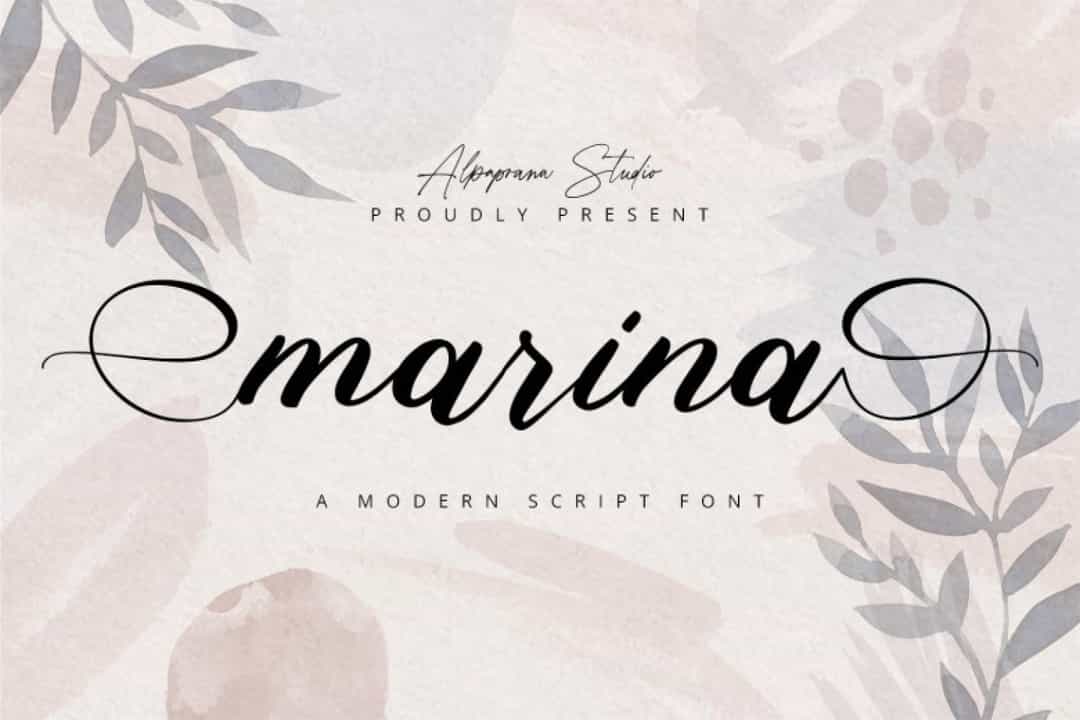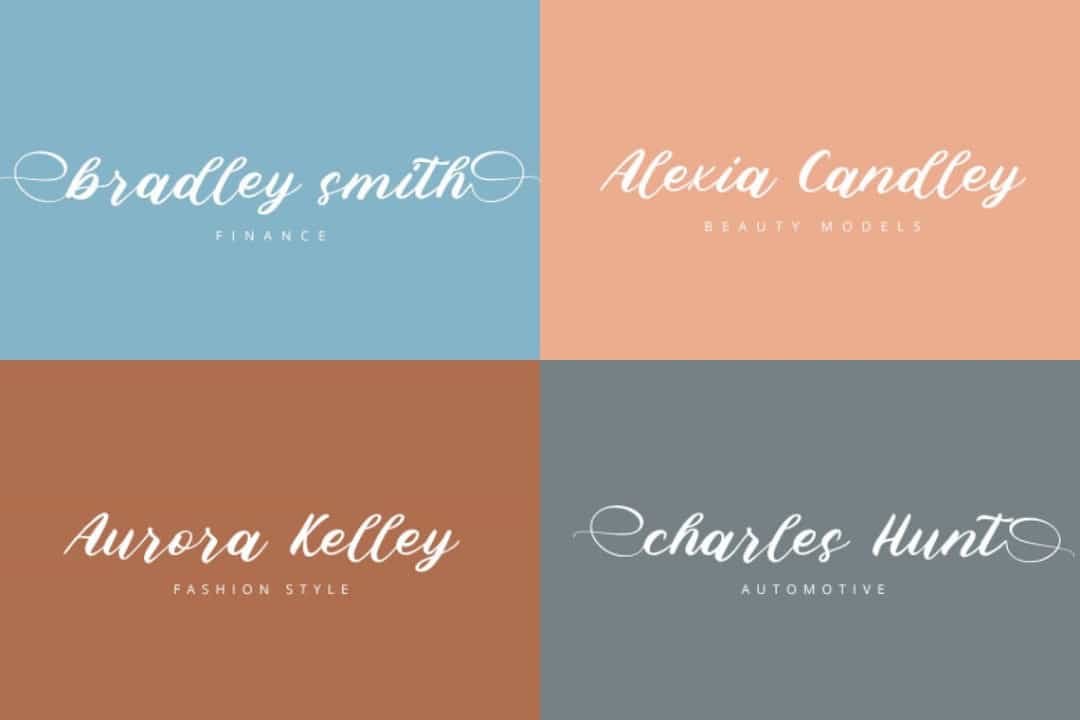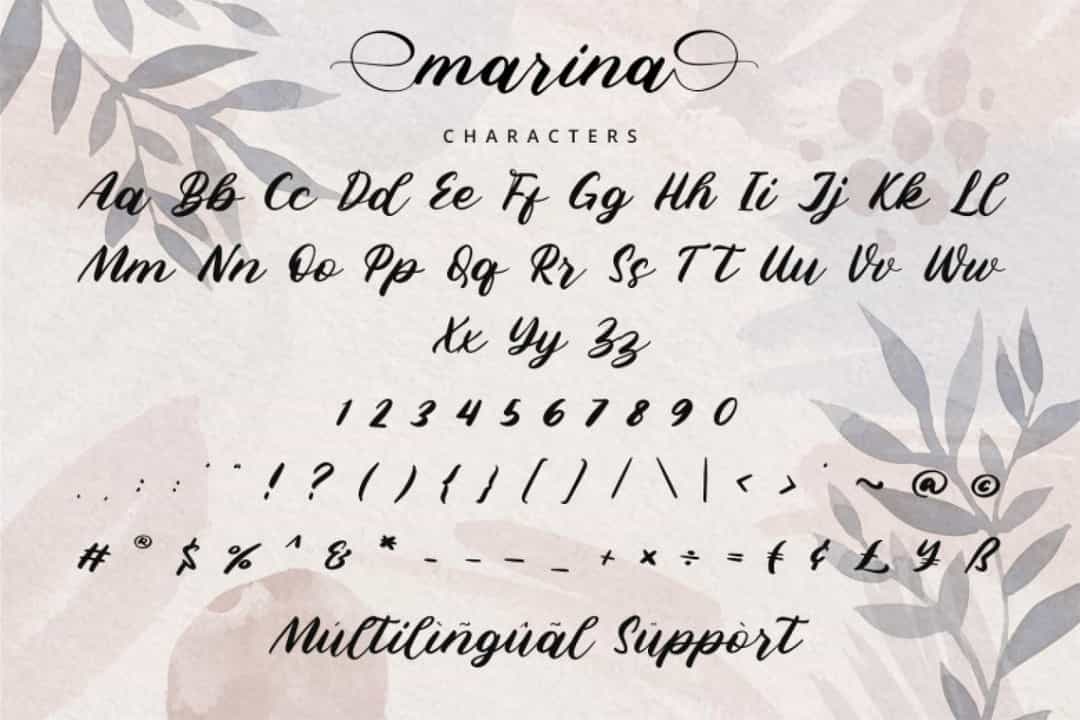
Discover Marina Font, part of the Calligraphy Handwritten collection—a versatile and unique font perfect for adding a personal touch to your projects. Download it for free and enjoy crafting designs with style, from invitations to social media posts. This font is available exclusively for personal use, giving you the freedom to create without limits. Unlock your creativity with Marina Font today!
Marina is an elegant handwritten script font with modern and authentic vibes, perfect for branding, logo Design, lettering logotypes clothing posters magazine packaging bags shopping poster T-shirt photography events photography and any other design projects.